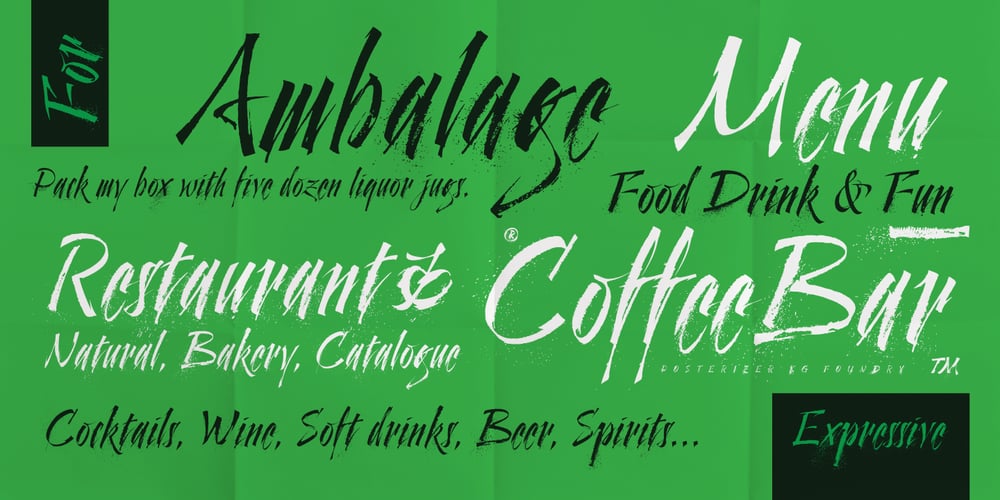
Cal Expressive Font Family was designed by Lazar Dimitrijević and published by Posterizer KG. Cal Expressive contains 1 styles and family package options. Calligrapher Expressive is one of the calligraphic group of fonts called “21 alphabets for Calligraphers“. All graphemes are taken from calligraphic pages written in Expressive calligraphic style with nibs made of cans. This font is ideal for calligraphic sketches or for imitation of ancient manuscripts. The font contains all the Latin glyphs.